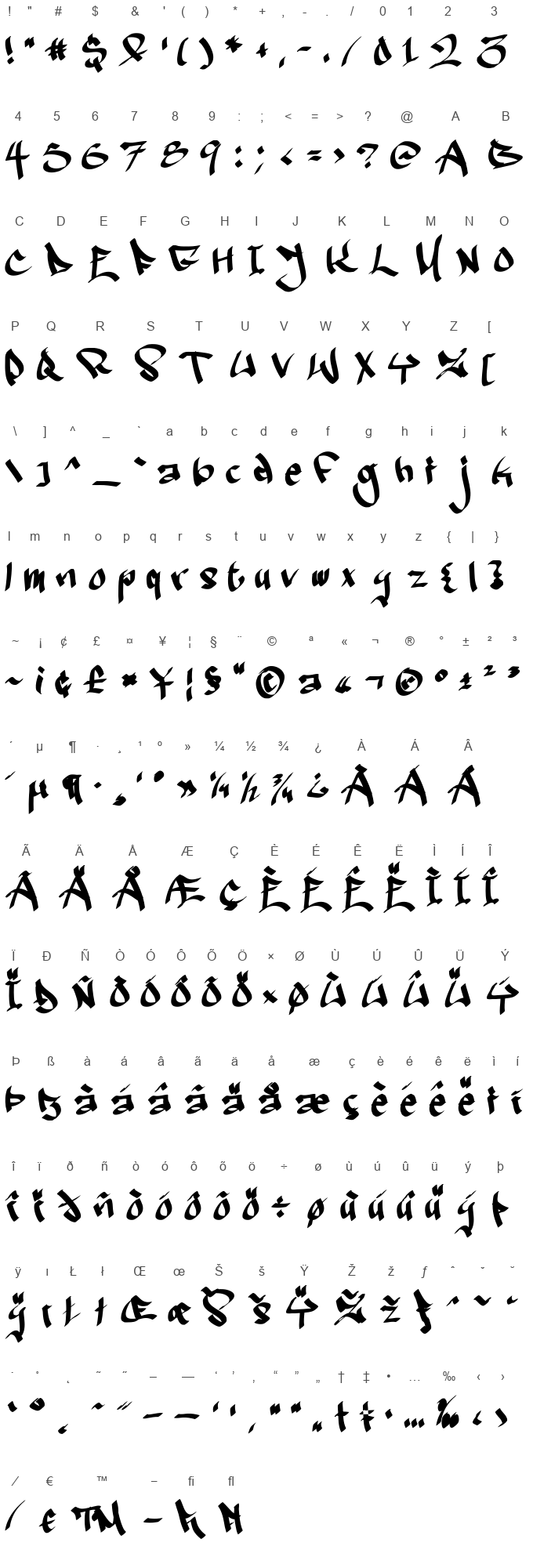
Ah, Ruthless Wreckin TWO, the font that sauntered into the digital typeface scene with the swagger of a vintage gangster movie protagonist, yet bears the charm of an old-school comic book. Picture the scene: it's the typeface that appears in a cloud of smoke, wearing a metaphorical trench coat, ready to drop the mic at a typography slam. This font isn't just a collection of characters; it's an attitude, a statement, a way of life.
Crafted with a rebellious spirit, Ruthless Wreckin TWO eschews the conventional path of its serif and sans-serif cousins, opting instead for a design that's as unapologetic and bold as a graffiti tag on a freshly painted wall. Each letter stands as if it’s ready to brawl, yet they align with a precision that suggests a meticulous, cunning plan. The characters have this unique blend of aggression and harmony, making the font perfect for projects that aim to stand out, shout out, and perhaps, on occasion, freak out.
Its exaggerated forms and sharp edges give it a dynamic energy, making it ideal for posters that refuse to be ignored, album covers that scream for attention, or any visual medium where the message is as fierce as the design itself. Ruthless Wreckin TWO is not just about making text legible; it's about making it felt, experienced, almost as if each word could leap off the page and start a revolution in the streets or at the very least, in the corridors of graphic design appreciation.
So, if you're looking to add a dash of daring, a pinch of punk, and a dollop of disregard for the mundane to your work, Ruthless Wreckin TWO is your trusty sidekick. Just be prepared – with this font in your arsenal, your designs won’t just speak to your audience; they’ll shout, holler, and demand the spotlight.